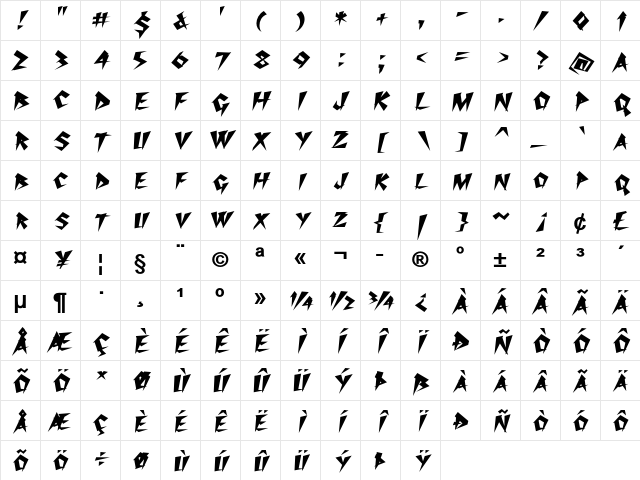
Thrashin Bold
Thrashin Family
Design Context for Thrashin
Thrashin is a composed and adaptable typeface that performs quietly and consistently across a wide range of design contexts. Its bold stroke weight gives it real presence on the page.